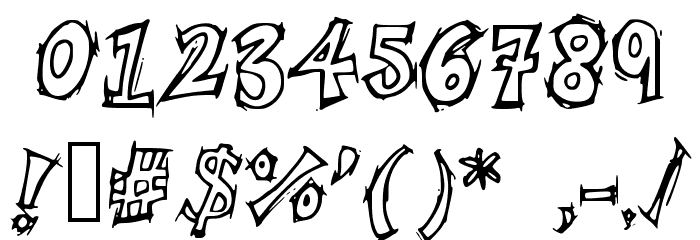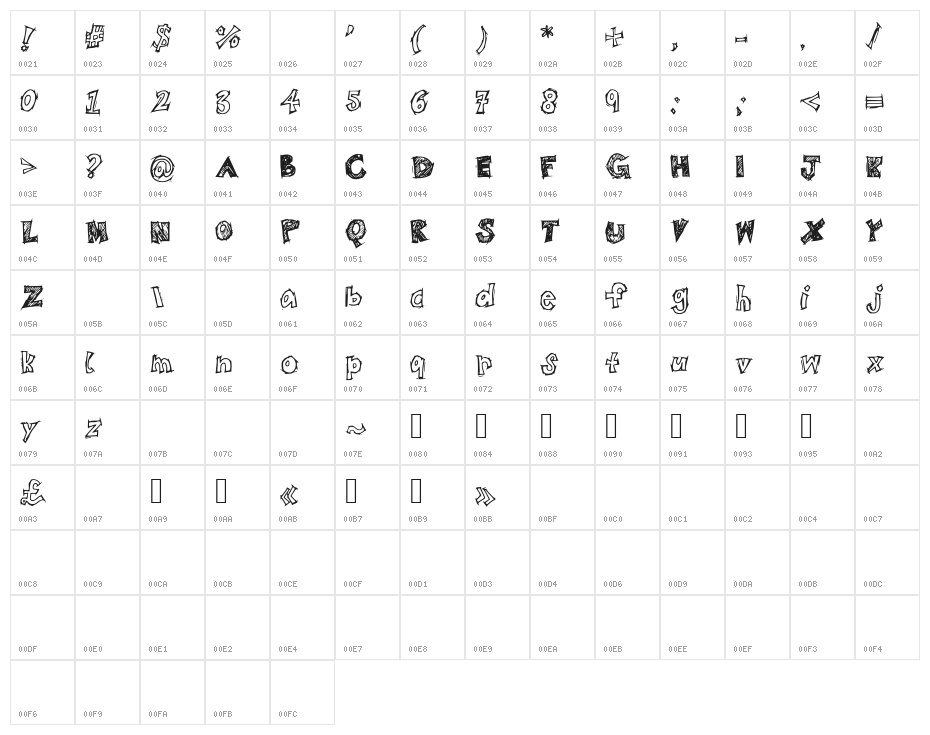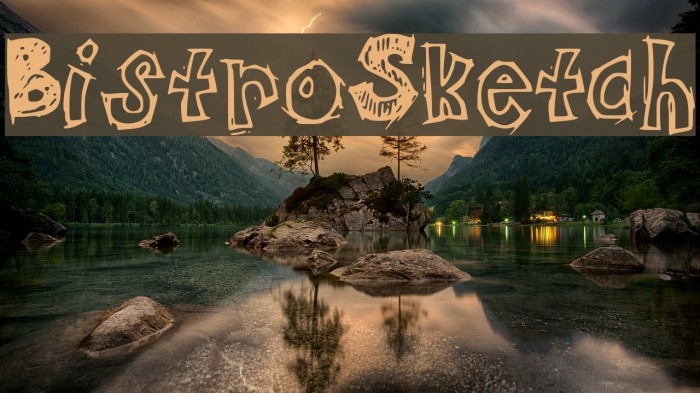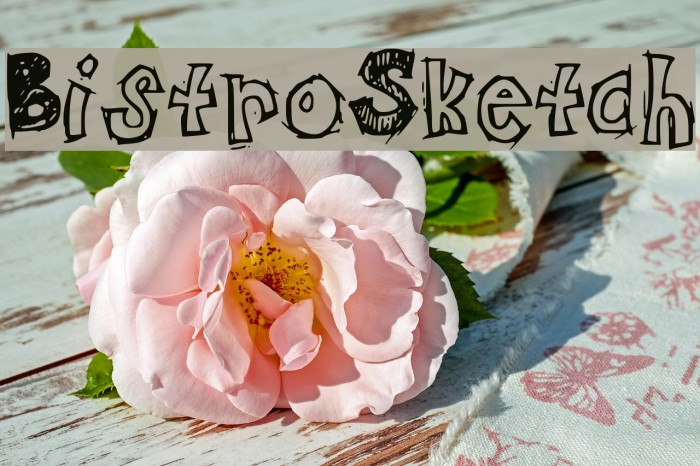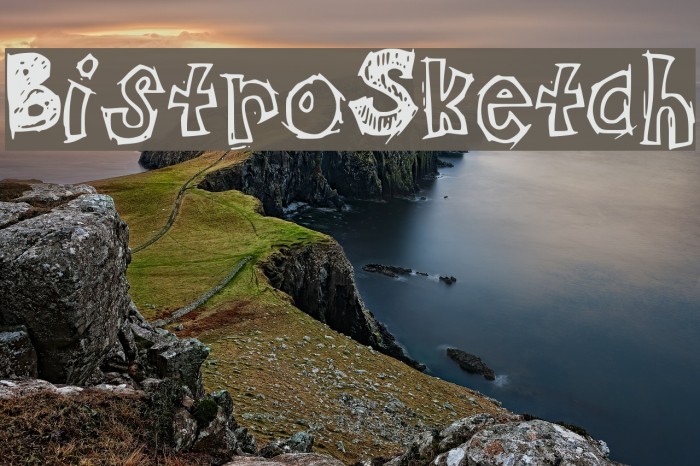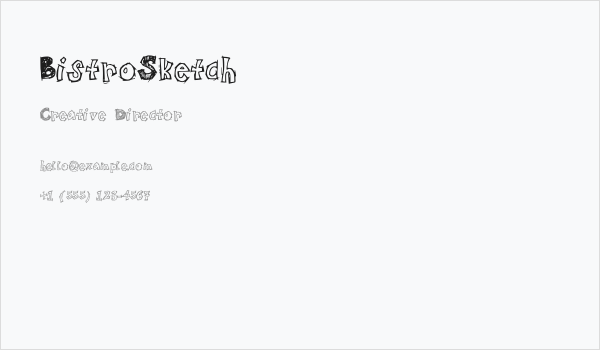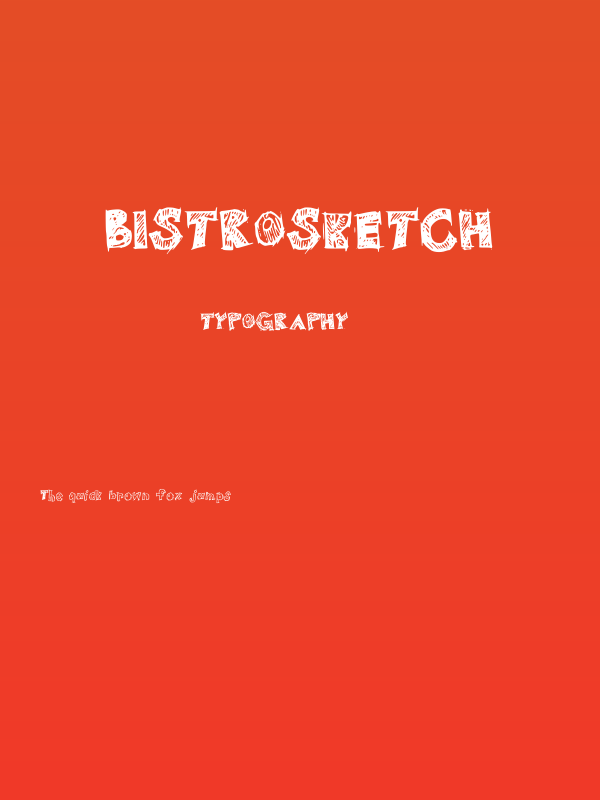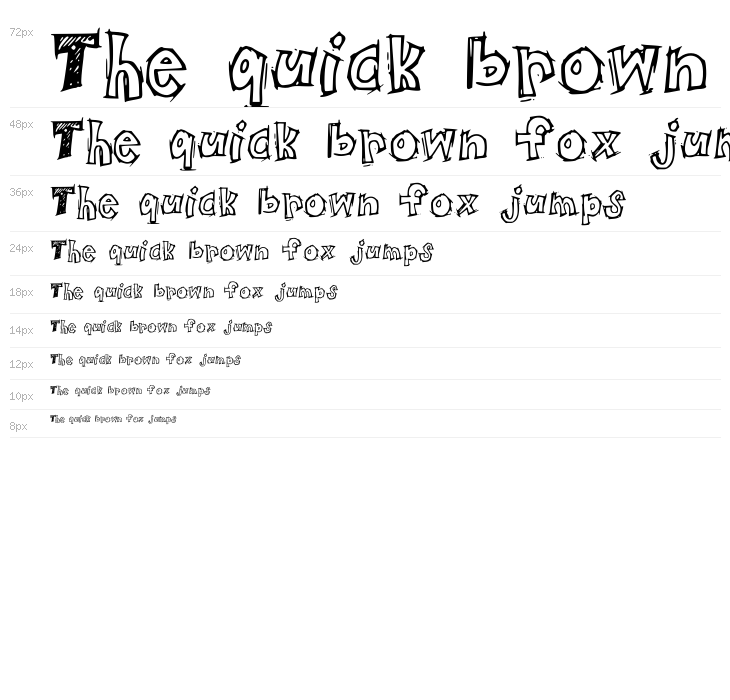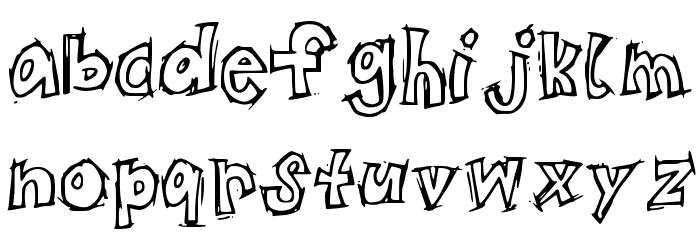
BistroSketch Font
BistroSketch Description
This font exudes a playful and artistic vibe, characterized by its sketch-like, hand-drawn appearance. The letters are bold and irregular, with a rough, textured outline that gives them a dynamic and energetic feel. Each character seems to have been crafted with a casual, freehand style, making it perfect for projects that require a personal touch. The uppercase and lowercase letters maintain a consistent style, with exaggerated curves and angles that add to the whimsical nature of the font. Numbers and special characters follow the same design principles, ensuring a cohesive look across all text elements.
| Proposed Projects | Ideal for children's book covers, playful branding, artistic posters, and creative social media graphics. |